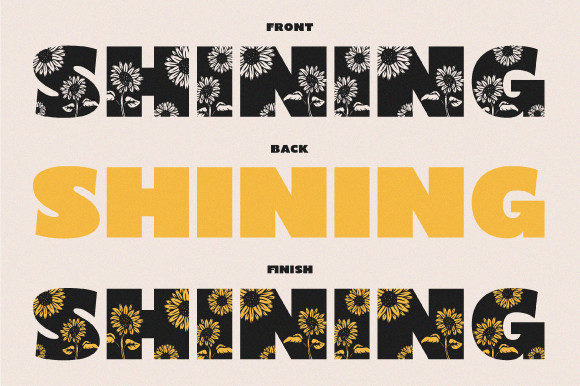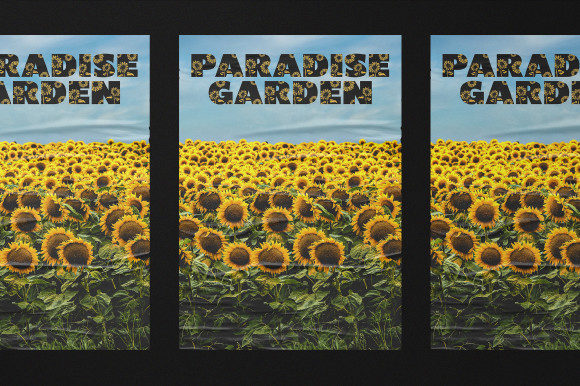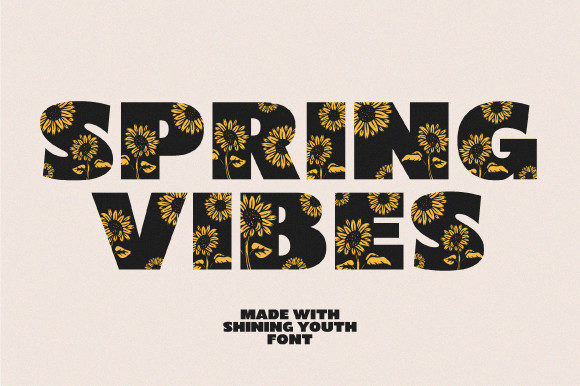
Introduction to Shining Youth Font
Shining Youth is a fun and cool looking decorative font, featuring delicate flowers on each character.
It is perfect for product packaging, branding project, magazine covers, social media, wedding, or just used to express words above the background .
Key Features of Shining Youth Font
Why Choose Shining Youth Font?